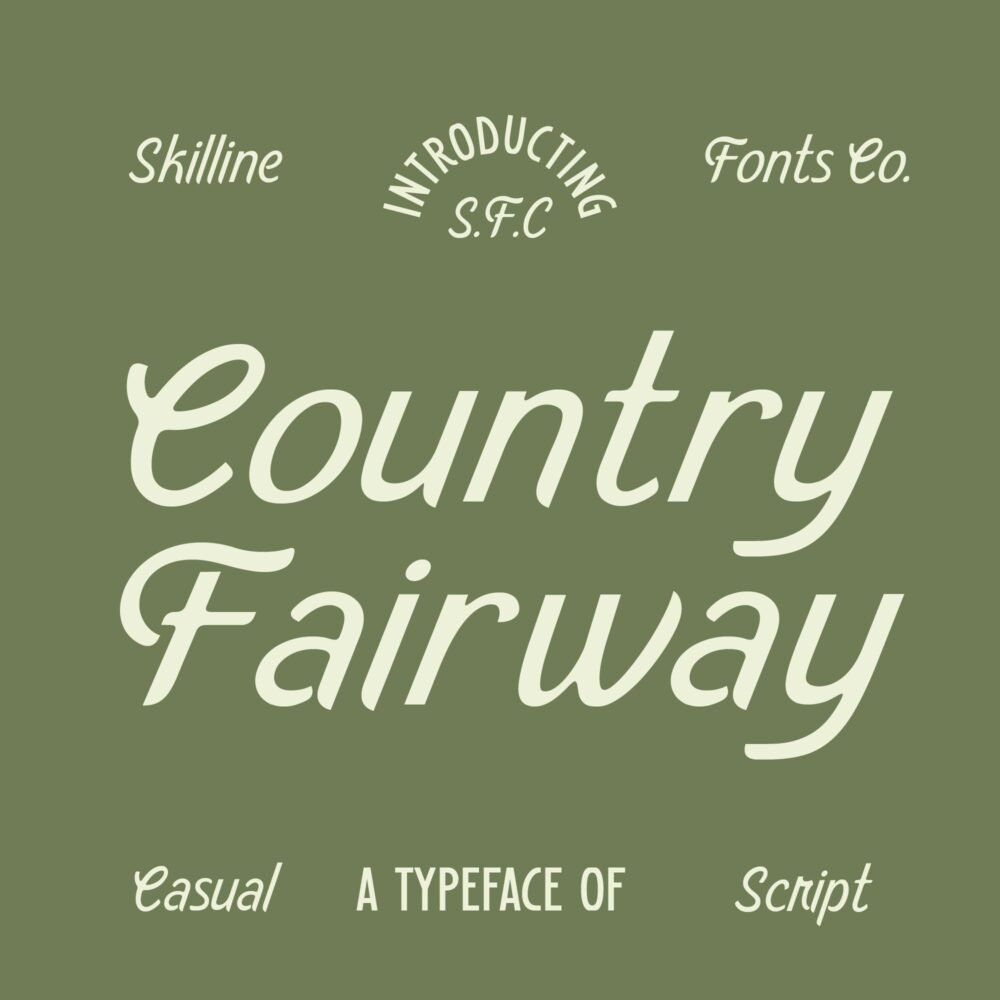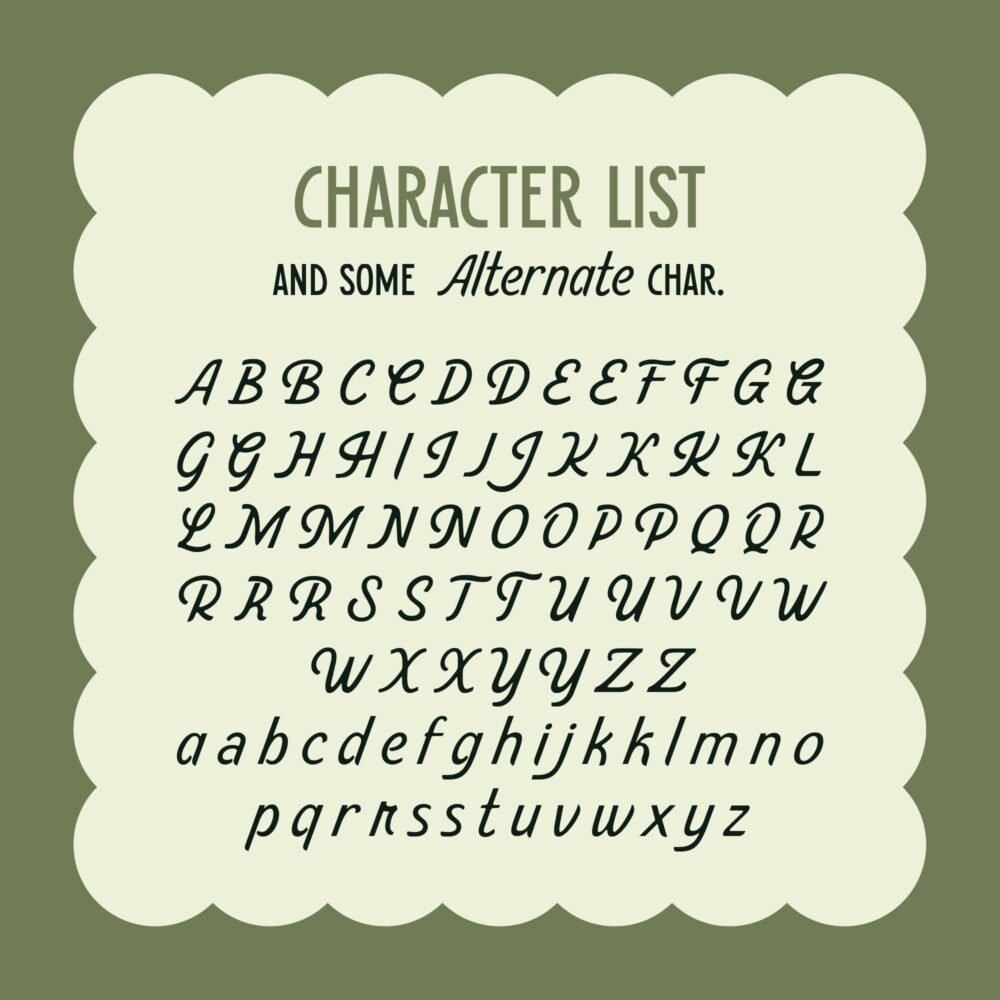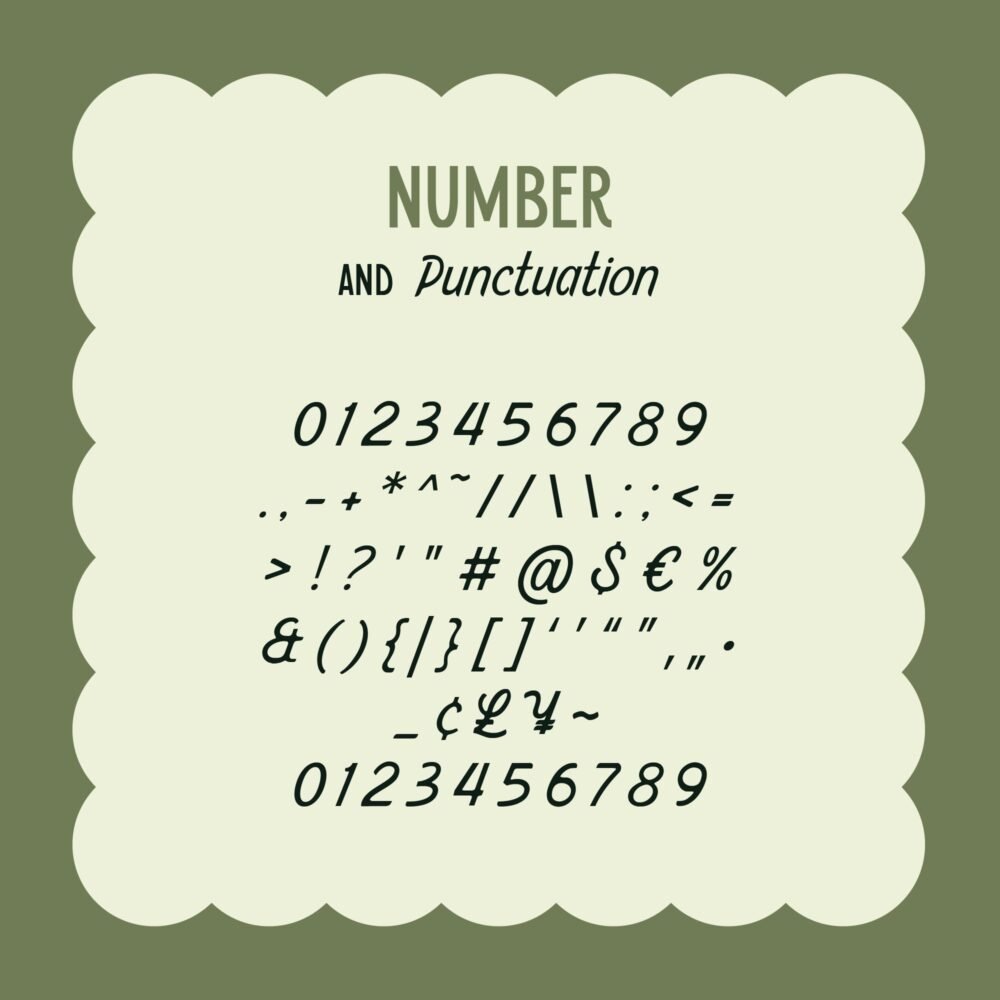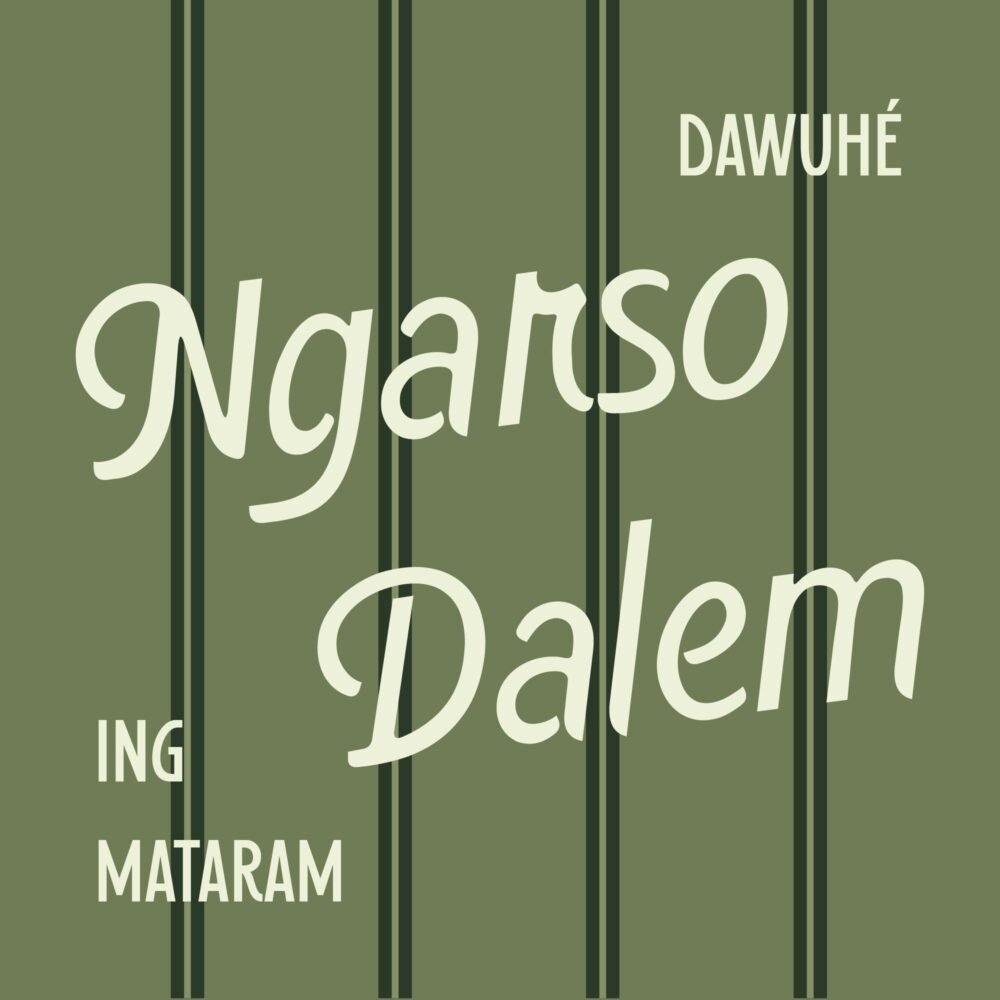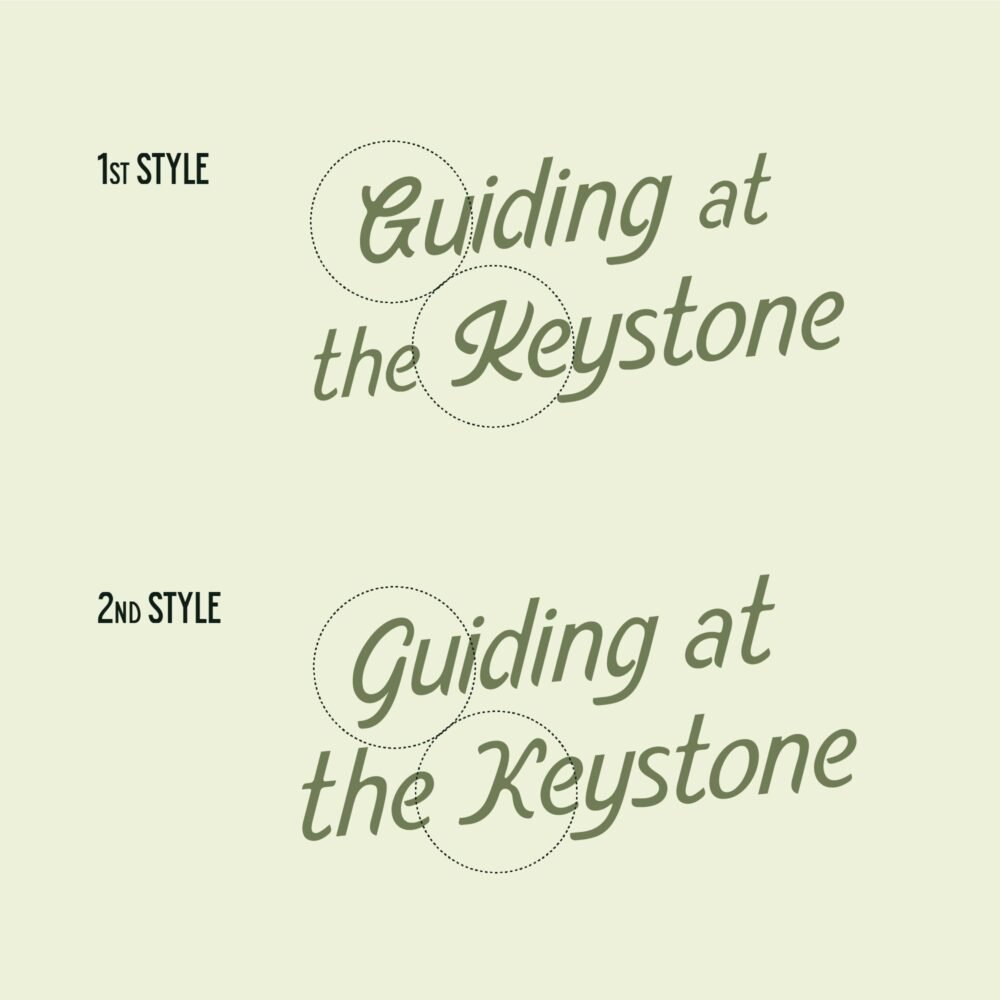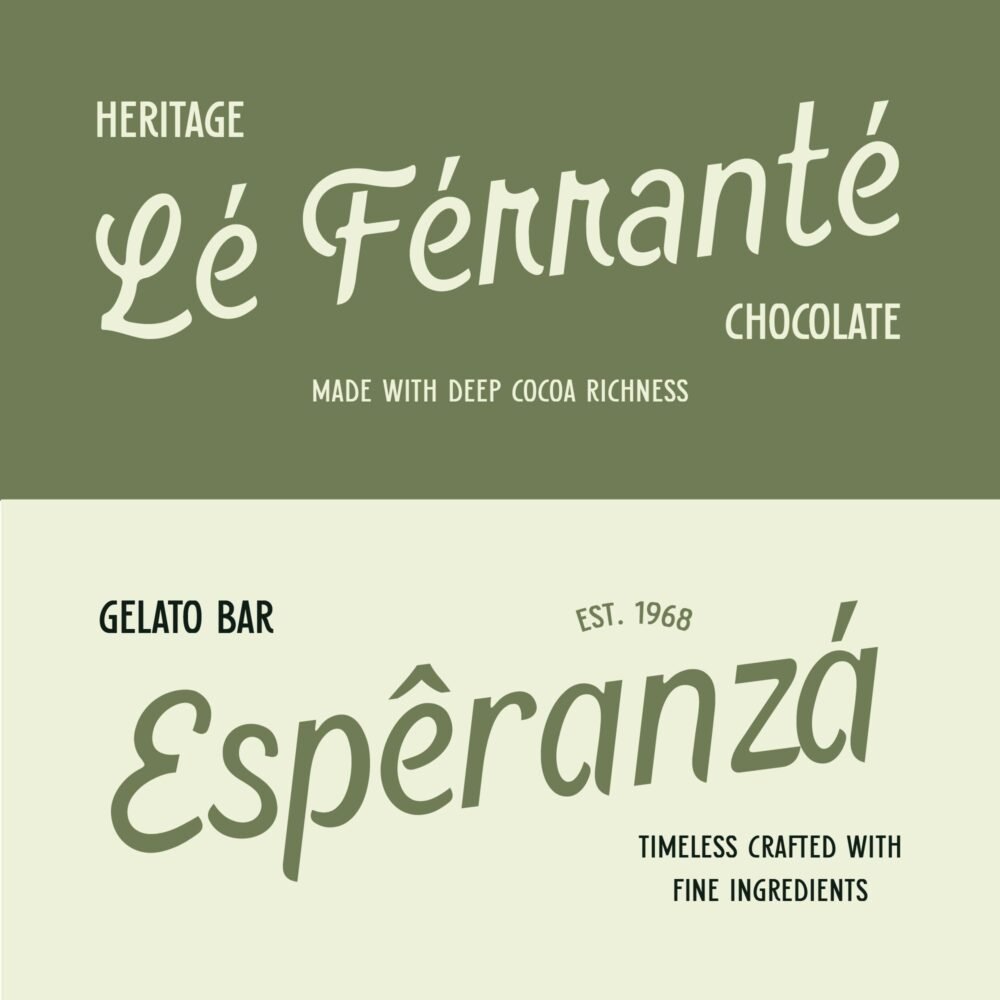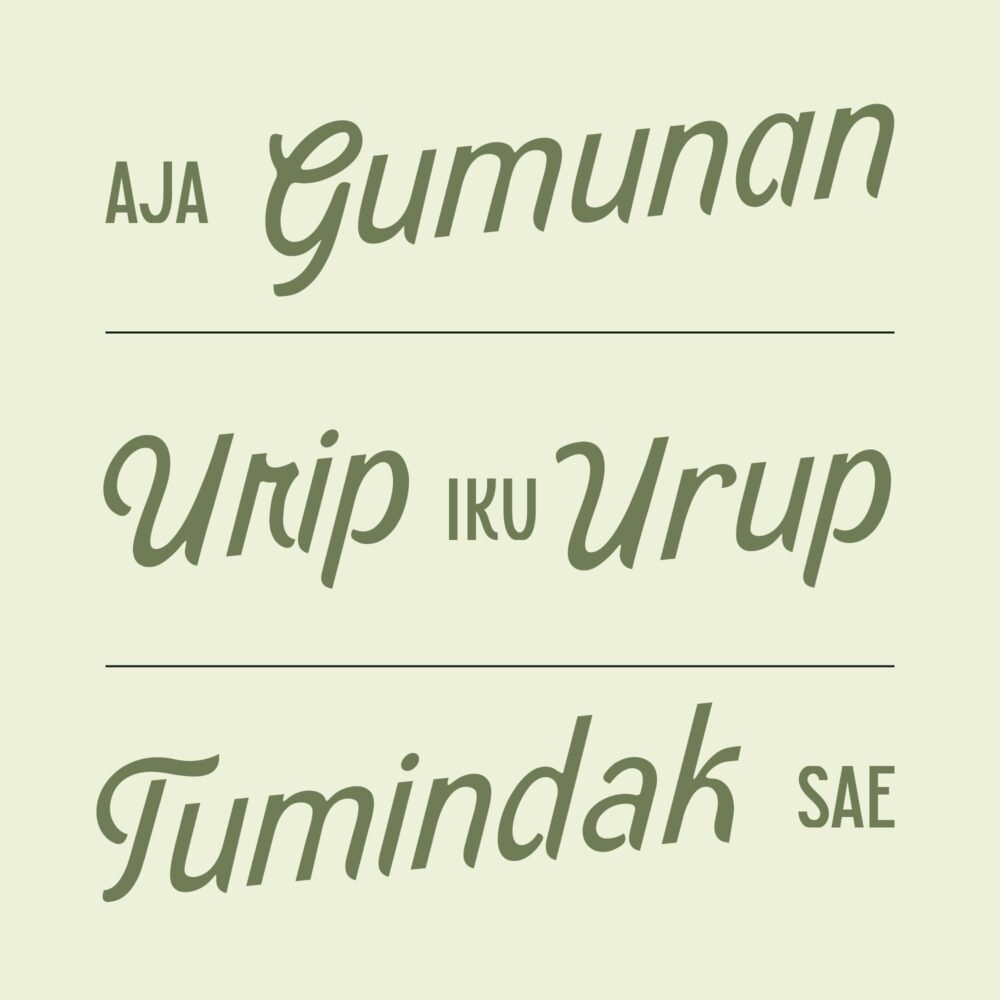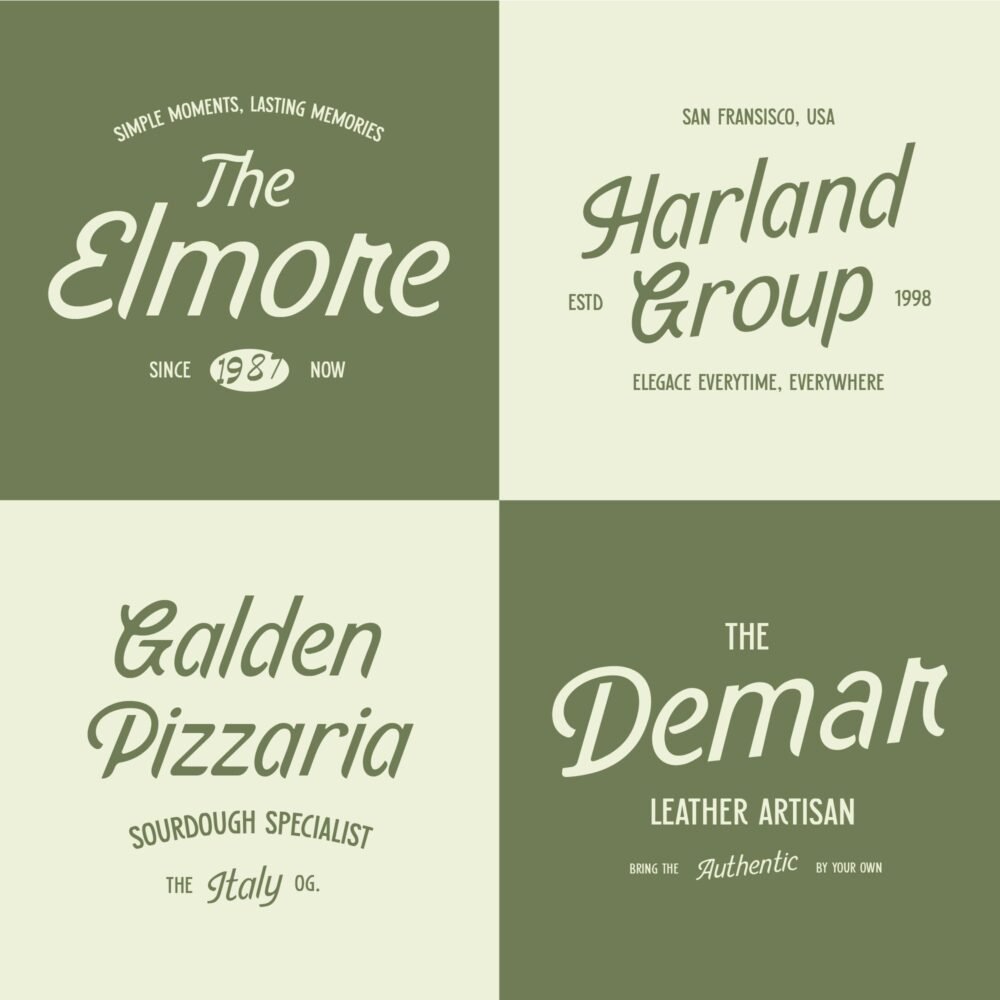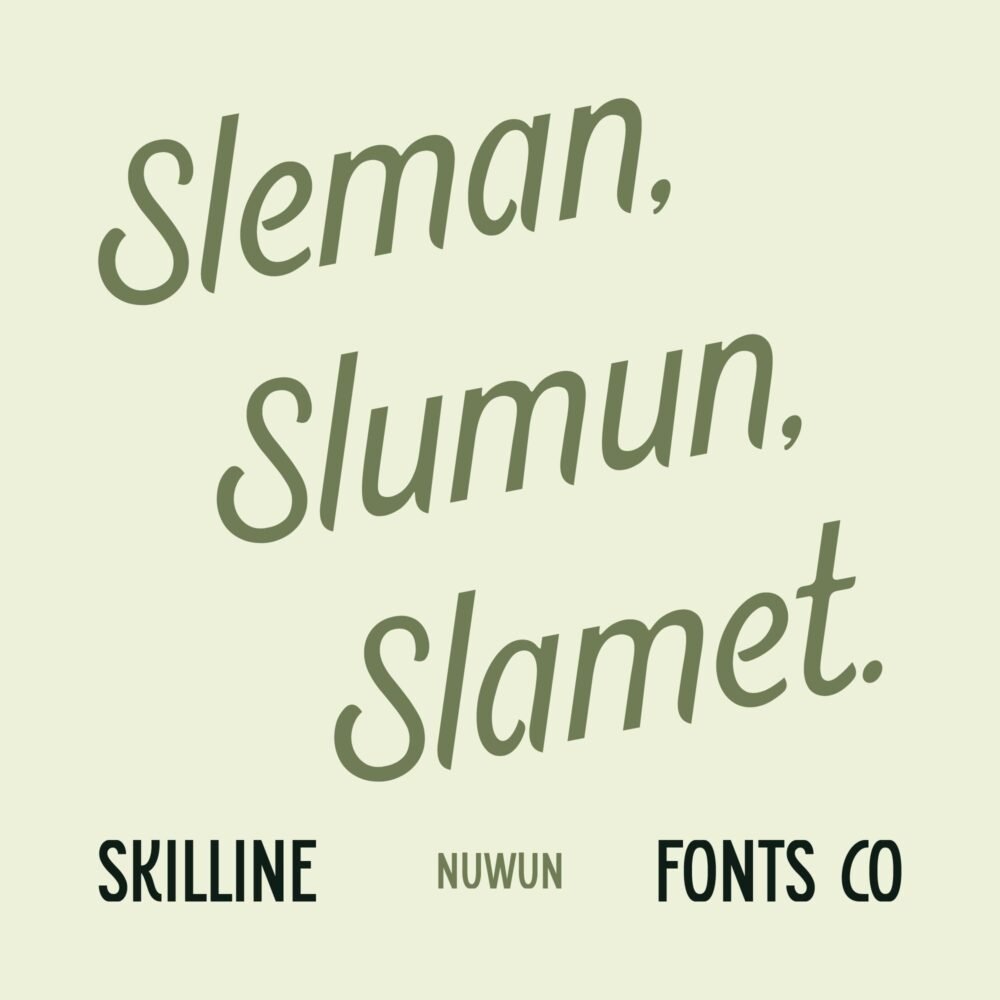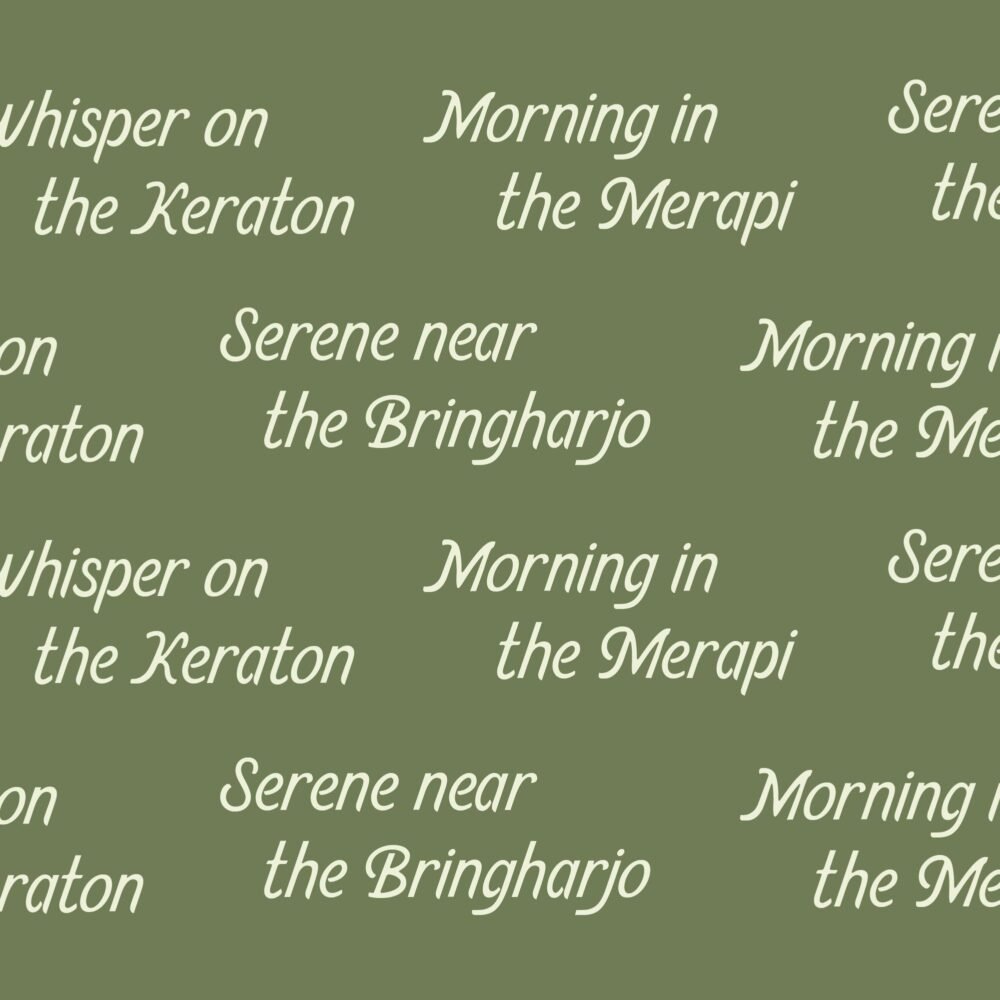
Country Fairway is a vintage-inspired script display typeface that blends classic heritage with refined modern clarity. Inspired by traditional lettering, timeless signage, and handcrafted typography, Country Fairway delivers smooth flowing strokes and balanced forms that feel elegant, confident, and enduring.With its natural rhythm and carefully drawn curves, Country Fairway evokes a sense of craftsmanship often found in heritage brands, classic packaging, and premium lifestyle identities. Its character works seamlessly across applications, from editorial headlines and product labels to apparel graphics and refined sports branding, including golf clubs, country clubs, and leisure wear.
Designed to feel warm yet polished, Country Fairway brings a timeless atmosphere suited for brands that value tradition, quality, and understated elegance.
Ideal Applications for Country Fairway
- Heritage & vintage branding systems
- Packaging for food, beverage & premium goods
- Café, restaurant & hospitality identity
- Apparel, lifestyle & leisure merchandise
- Editorial covers, posters & headline typography
- Logo design, signage & classic sports branding
- Script Display Typeface
- Smooth flowing letterforms
- Uppercase & lowercase characters
- Alternate Characters
- Numerals & punctuation
- Multilingual support